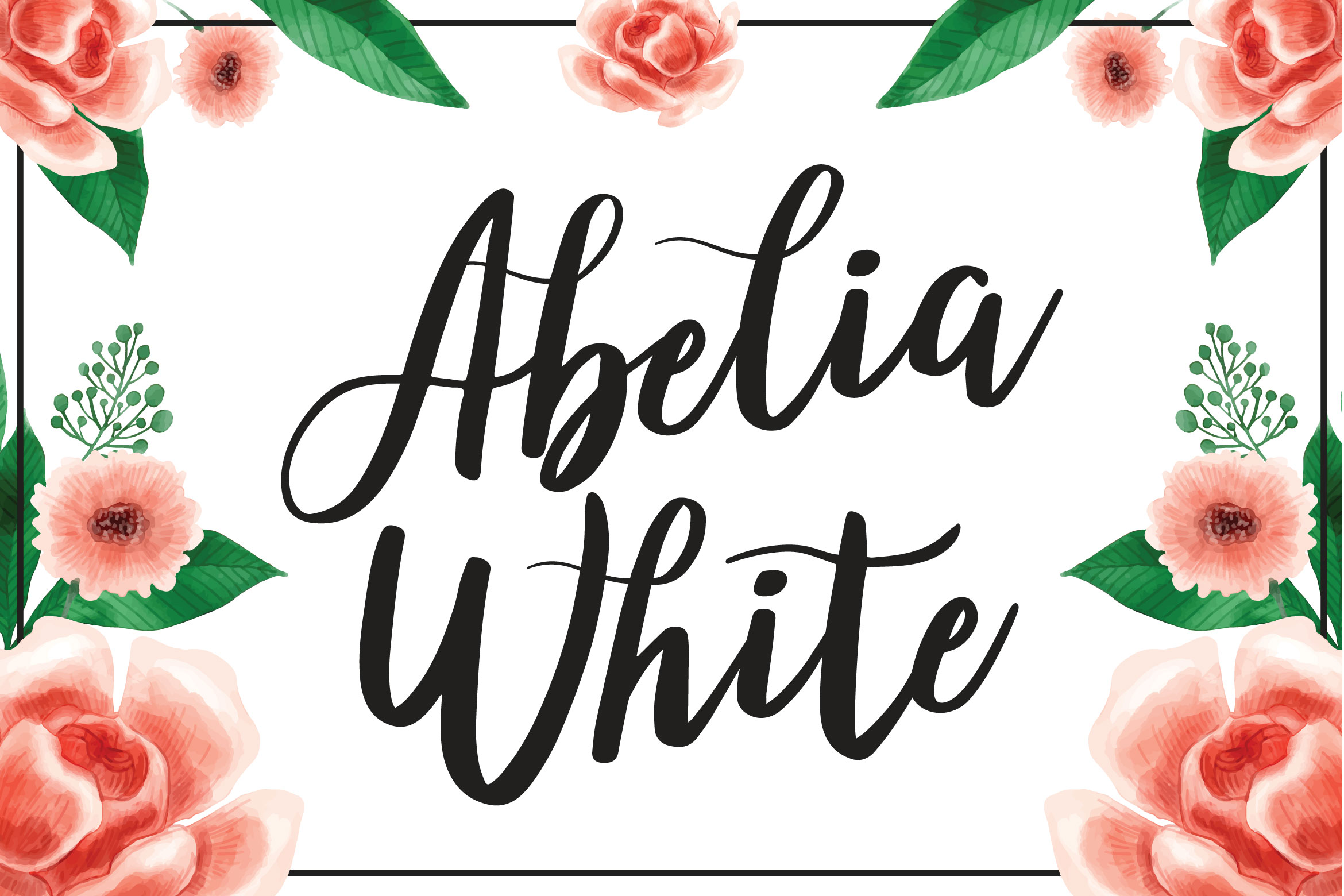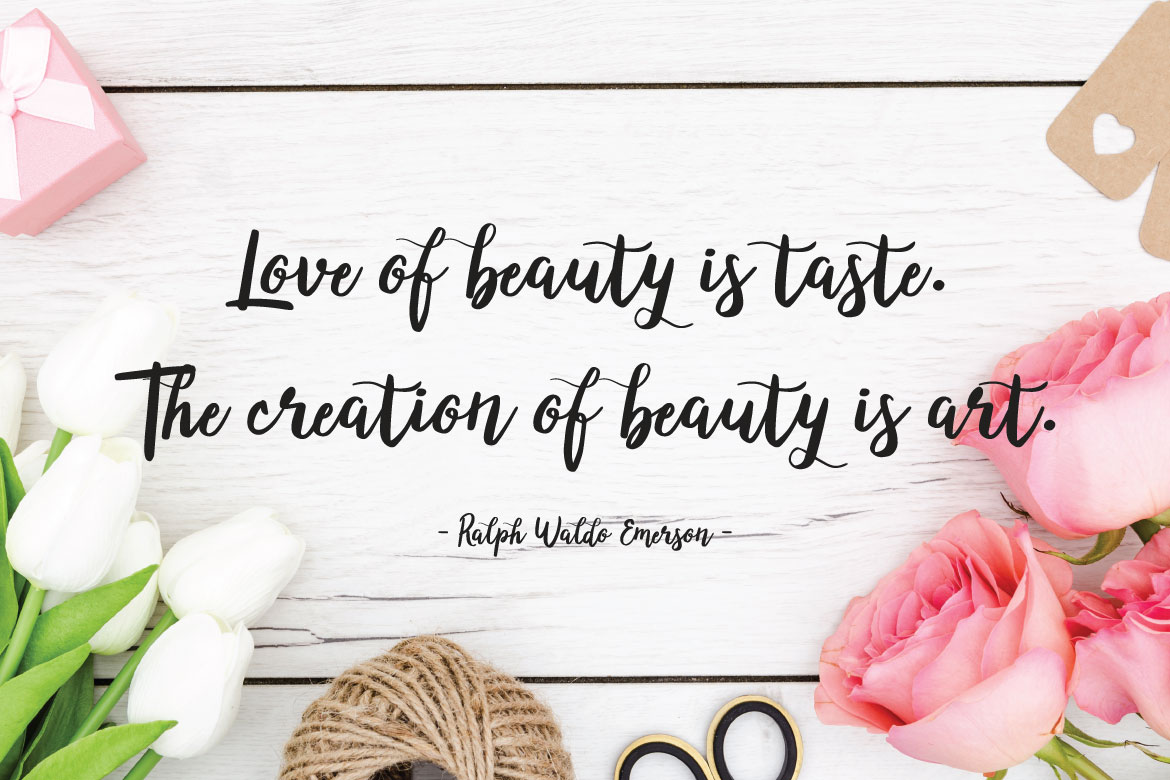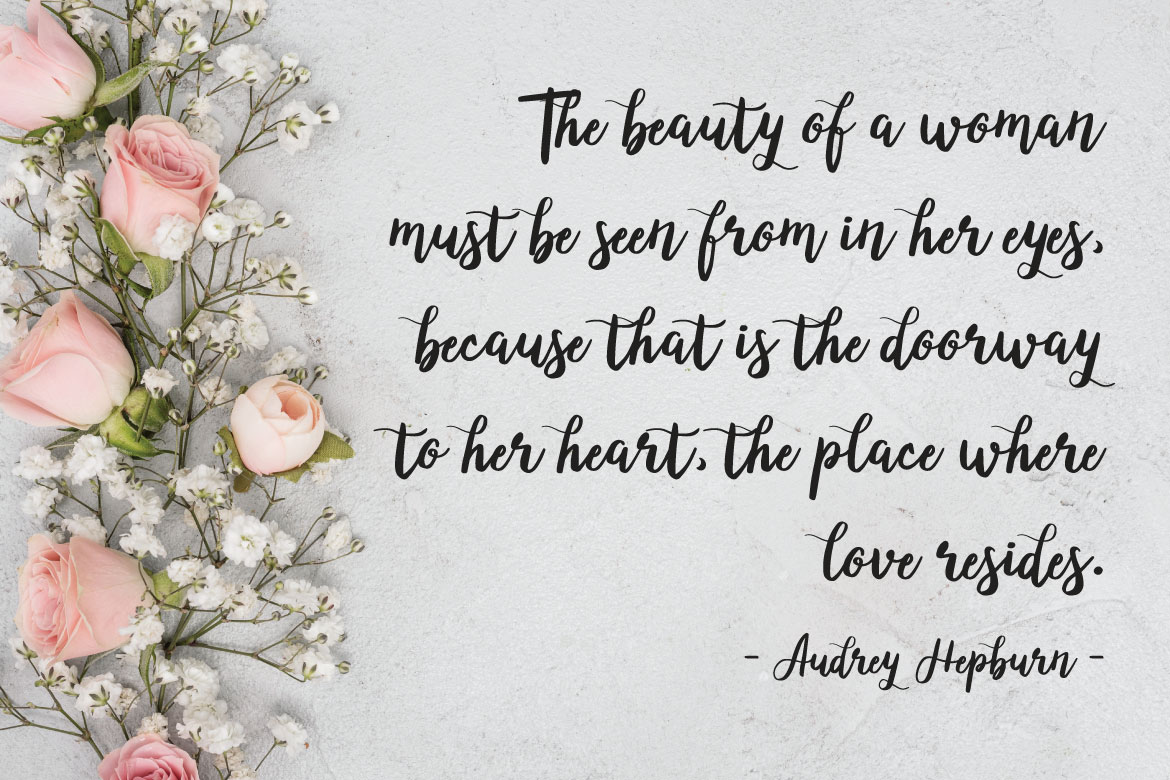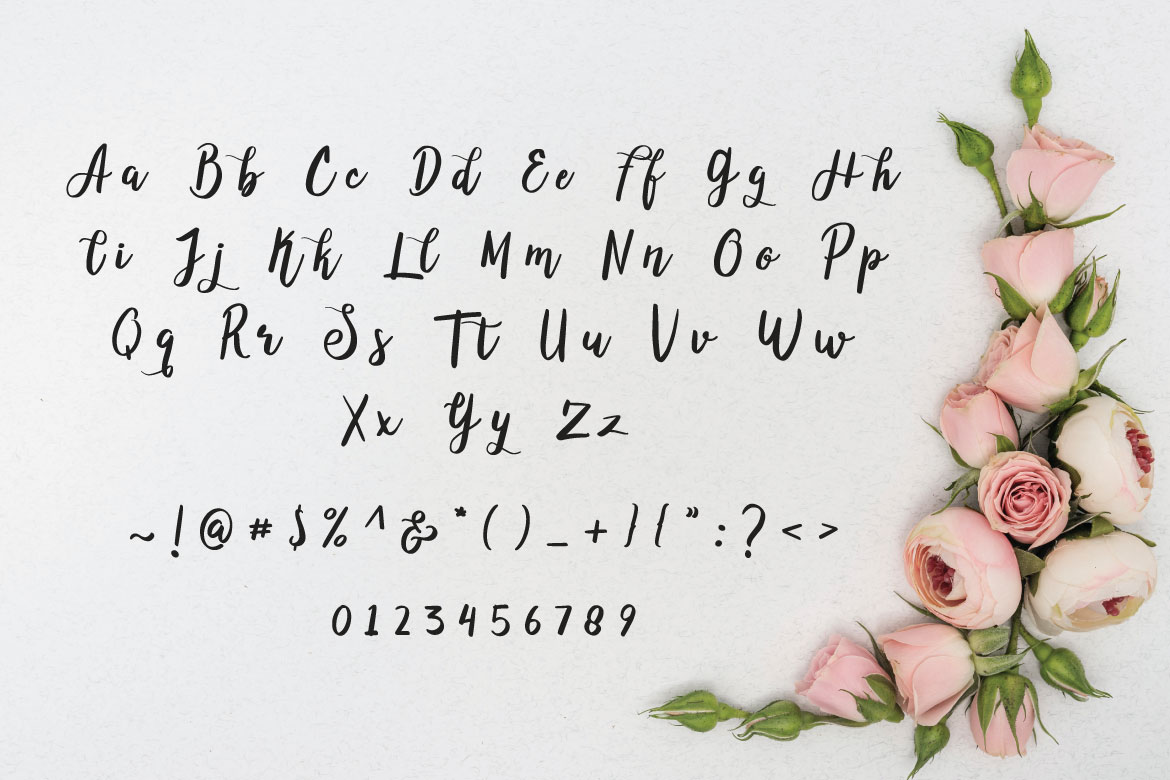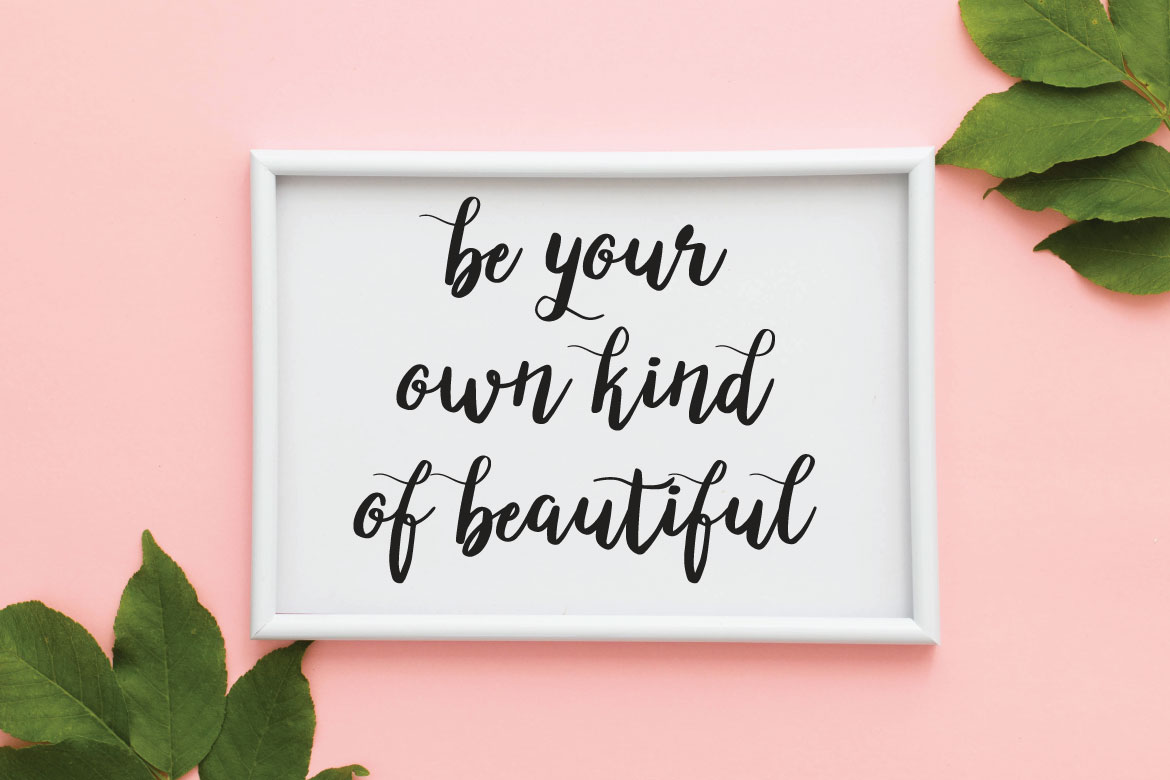
Abelia White
Abelia White is a graceful script font that captures the essence of modern elegance and handcrafted charm. Featuring smooth, flowing curves and delicate swashes, this typeface is ideal for creating romantic and stylish designs. Whether you’re designing wedding invitations, branding materials, or social media graphics, Abelia White adds a touch of refined beauty to your message.
This font includes uppercase and lowercase letters, numerals, punctuation, and multilingual support, making it versatile for a wide range of projects. Its natural and feminine aesthetic pairs beautifully with floral visuals, pastel colors, and soft-themed compositions. Perfect for beauty, fashion, stationery, and boutique branding.